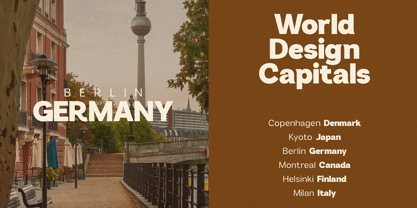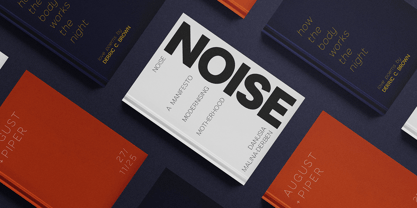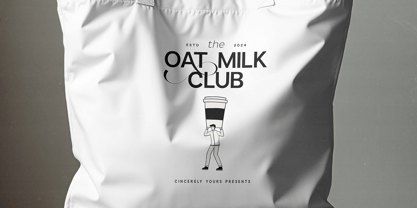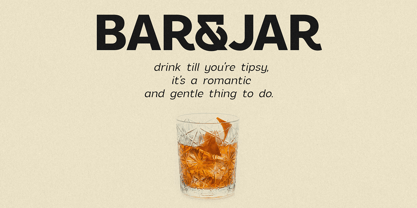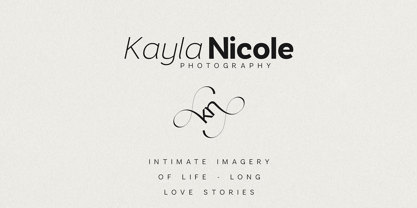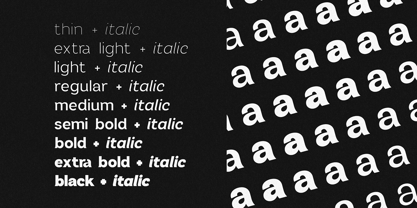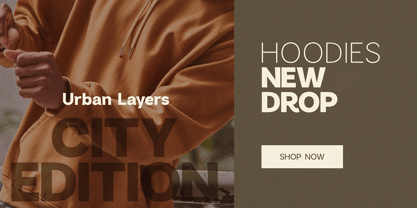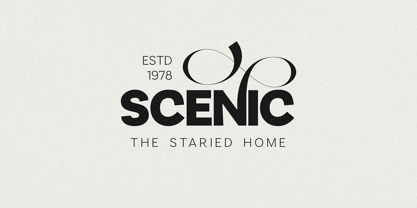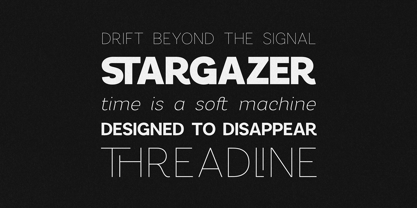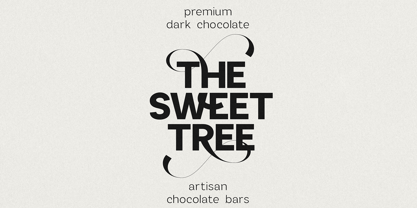
Omoro
by VP Creative Shop
The Omoro Font Family was designed by Vladimir Fedotov, Plamen Petrov and published by VP Creative Shop. Omoro contains 18 styles and family package options.
Modo is a contemporary sans serif typeface that strikes a perfect balance between clean minimalism and expressive creative flair. With nine weights and matching italics, Modo transitions effortlessly from elegant thin lines to bold, impactful statements. Its unique alternate glyphs and stylish ligatures infuse personality into your designs, making it an ideal choice for branding, editorial layouts, packaging, logos, and digital experiences. Supporting over 85 languages, Modo guarantees global usability, accommodating extended Latin alphabets and essential typographic symbols. Whether you're designing sophisticated headlines, minimalist body text, or striking displays, Modo provides a versatile typographic solution for modern designers.
Designers: Vladimir Fedotov, Plamen Petrov
Publisher: VP Creative Shop
Foundry: VP Creative Shop